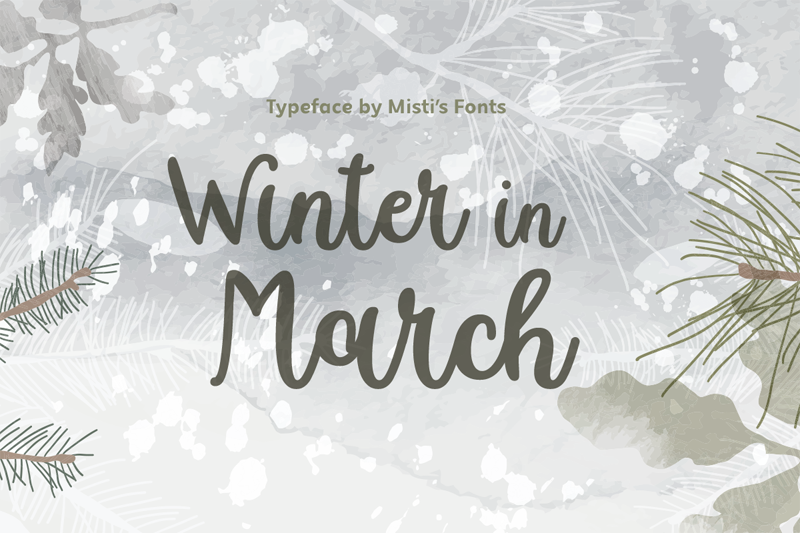
Font name: | Winter in March |
Winter in March is a charming and cursive script font. It would be great on Etsy shop, logos, banners, and products. Its whimsical style makes it ideal for creating cute greeting cards and personalized items, as well as cartoon or holiday-themed projects. Terms Of Use and Commercial Licensing: https://mistifonts.com/winter-in-march/ |